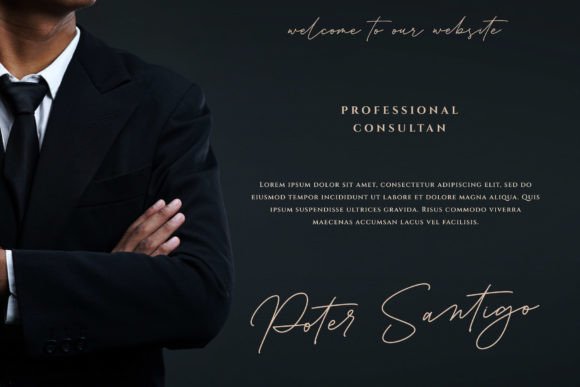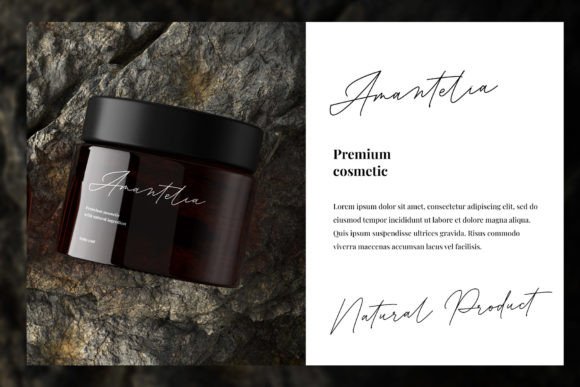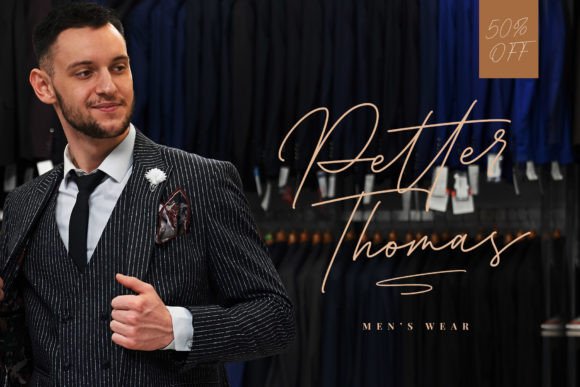
Introduction to Consultant Font
Consultant is an exquisite handwritten font, masterfully designed to become a true favorite.
Key Features of Consultant Font
Why Choose Consultant Font?
Consultant Font offers exceptional quality and versatility, making it a valuable addition to your design toolkit. Whether you’re creating for personal projects or commercial use, Consultant Font delivers professional results.